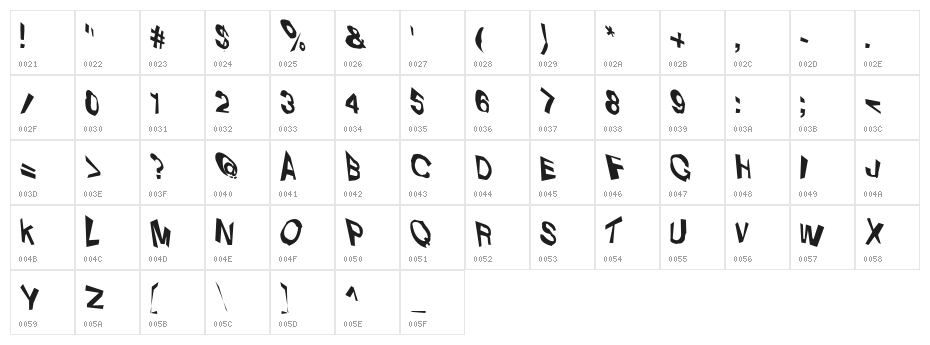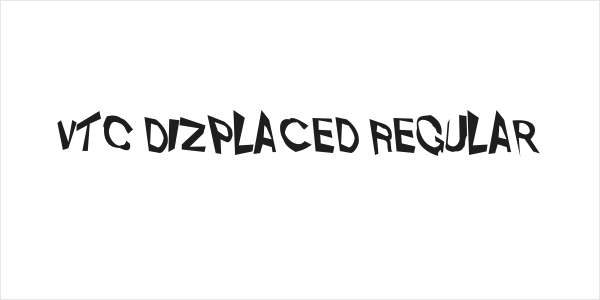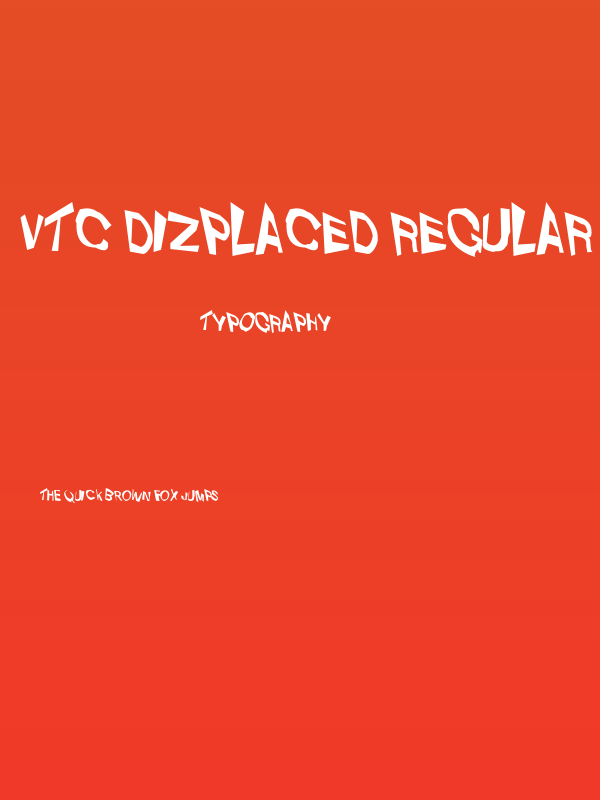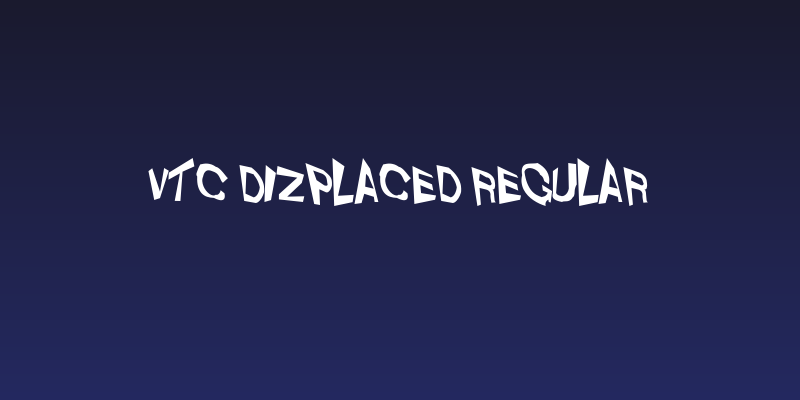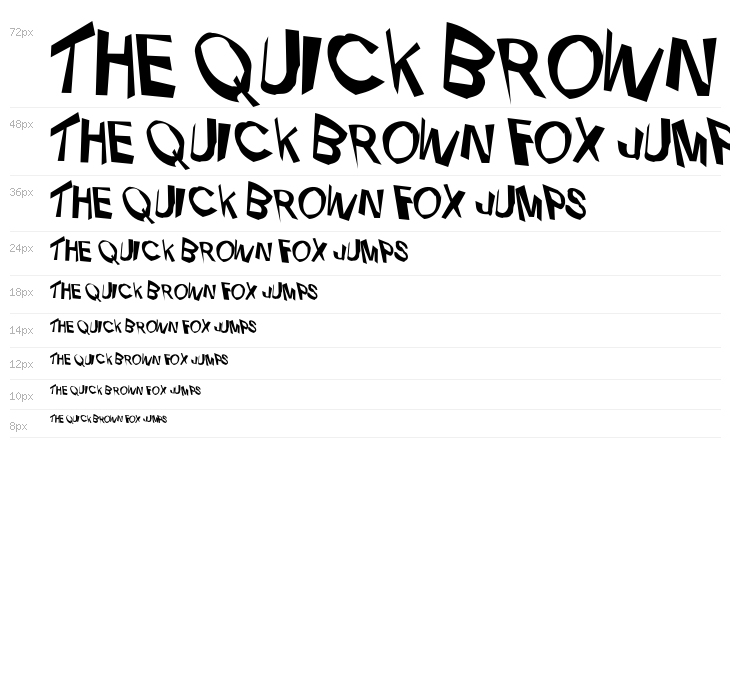
VTC Dizplaced Regular Font
VTC Dizplaced Regular Description
This font features a highly irregular and playful design, with each character appearing as if it has been distorted or displaced. The letters have a bold and chunky appearance, with uneven edges and varying angles, giving them a dynamic and energetic feel. The uppercase and lowercase letters maintain this quirky style, making the font stand out with its unique character. Numbers and special characters follow the same design principles, ensuring consistency across all glyphs. This font is ideal for projects that require a bold statement or a fun, unconventional look.
| Proposed Projects | Ideal for posters, album covers, children's books, or any project needing a bold and quirky aesthetic. |